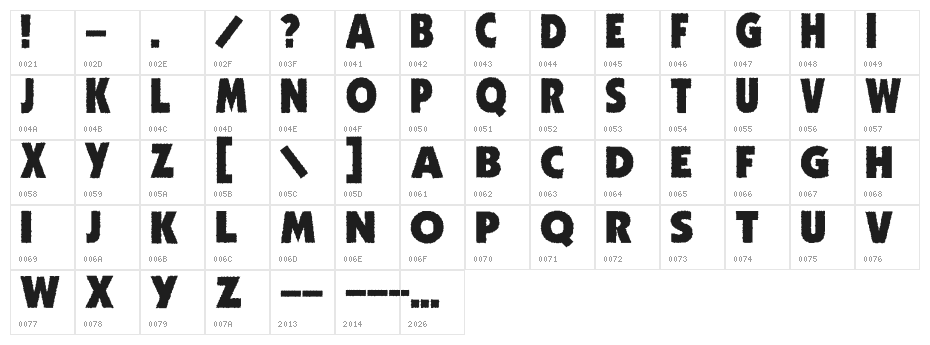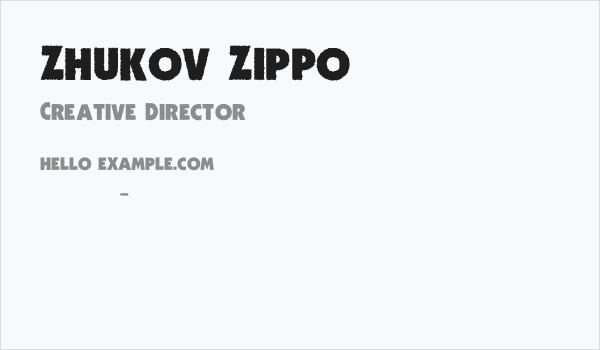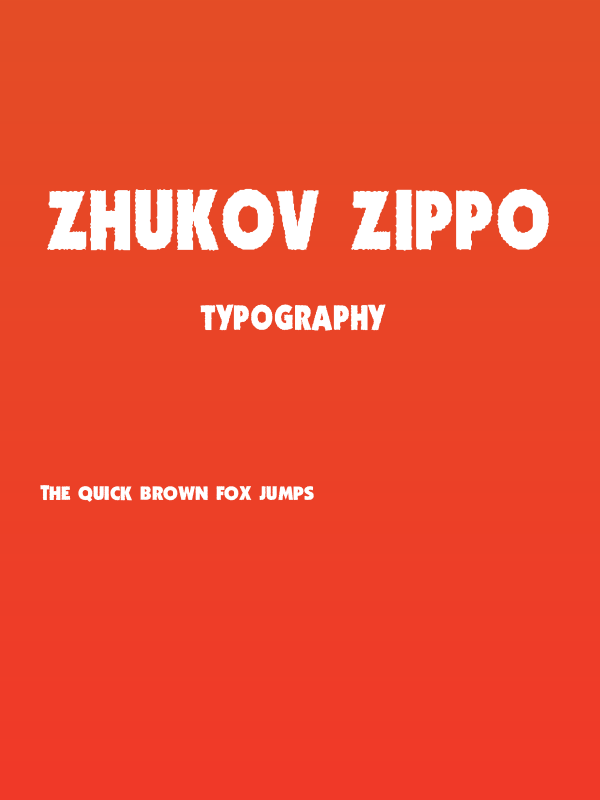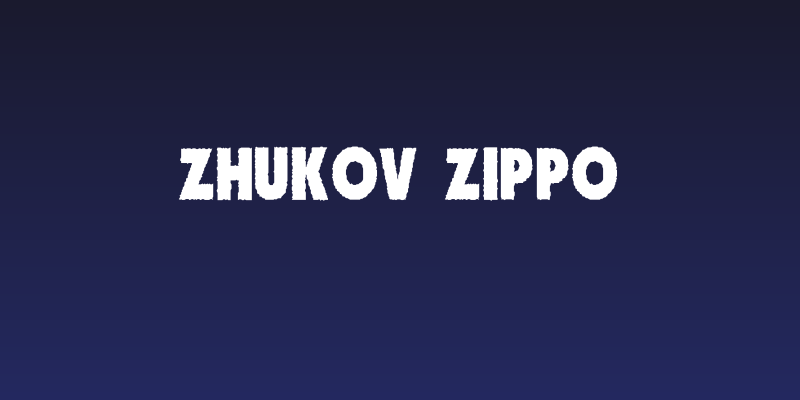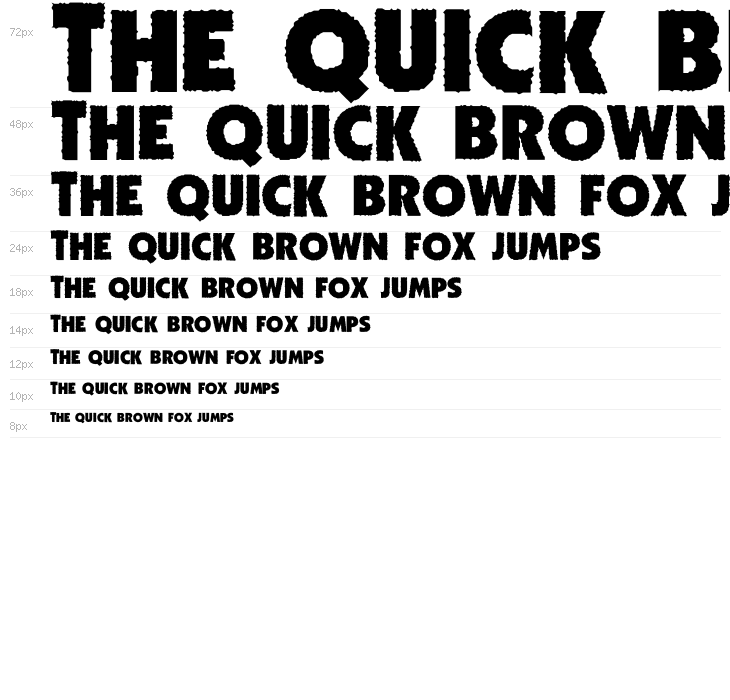
Zhukov Zippo Font
Zhukov Zippo Description
This font features a bold and impactful design with a rough, textured appearance that gives it a unique, handcrafted feel. The uppercase letters are prominent and assertive, making them ideal for attention-grabbing headlines or titles. The characters have a consistent weight, contributing to a strong visual presence. The texture adds a vintage or rustic charm, making it suitable for projects that require a touch of authenticity or a retro vibe. The spacing between characters is tight, which enhances the compact and cohesive look of the text. This font is particularly effective in designs that aim to convey strength and boldness.
| Proposed Projects | Ideal for posters, logos, branding, and any design needing a strong, vintage aesthetic. |